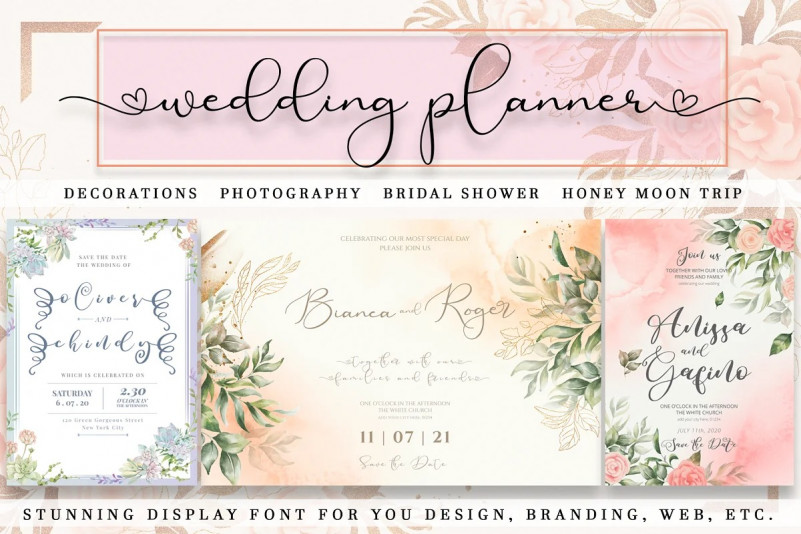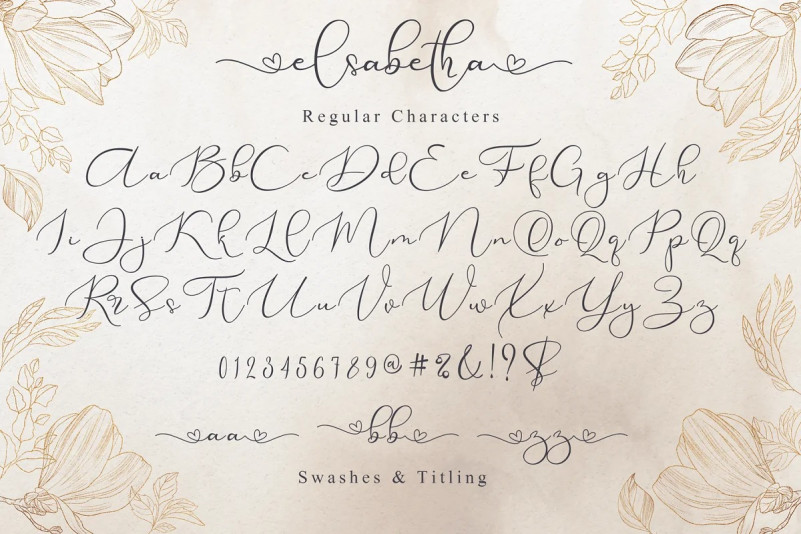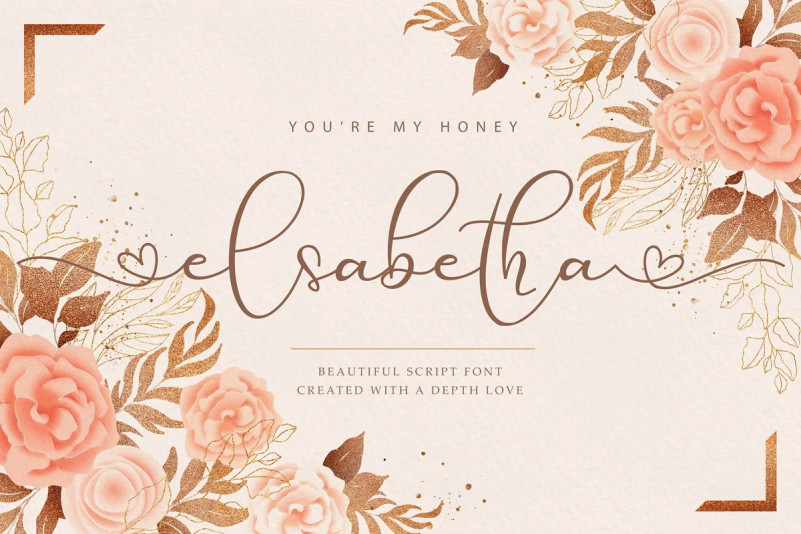
Elsabetha Calligraphy Font
Elsabetha is a delicate, elegant, and flowing handwritten font. It has beautiful and well-balanced characters and as a result, it matches a wide pool of designs. Elsabetha features a varying baseline, smooth lines, gorgeous glyphs, and stunning alternates. Add it to your most creative ideas and notice how it makes them come alive!